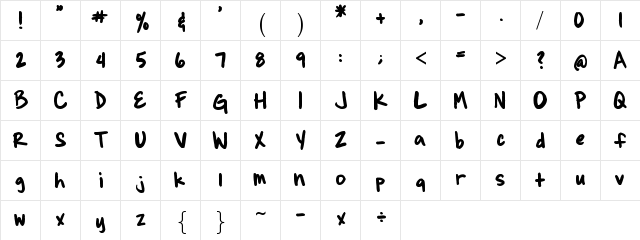
Brianne's hand Regular
Design Context for Brianne's hand Typeface
Brianne's hand flows with the natural rhythm of handwritten lettering, making it ideal for designs that call for warmth and personal expression.
Font Pairing: Combine Brianne's hand with a simple geometric sans for maximum contrast — the tension between flowing curves and clean structure is a classic typographic pairing.
Pro Tip: Pair Brianne's hand with a clean sans-serif for supporting text. The contrast between fluid script and geometric structure creates an elegant typographic hierarchy.